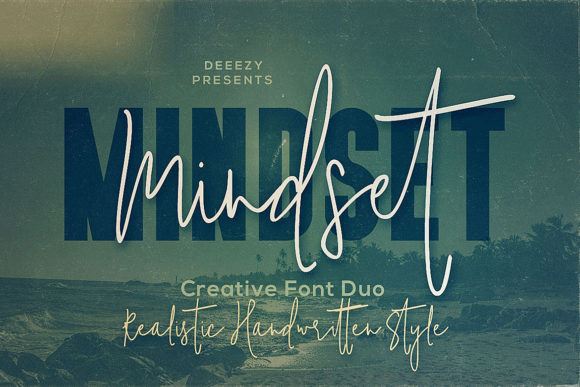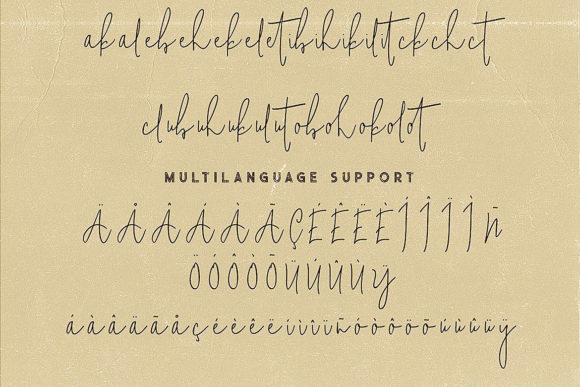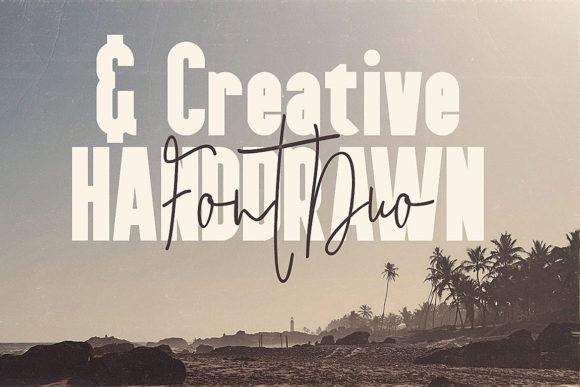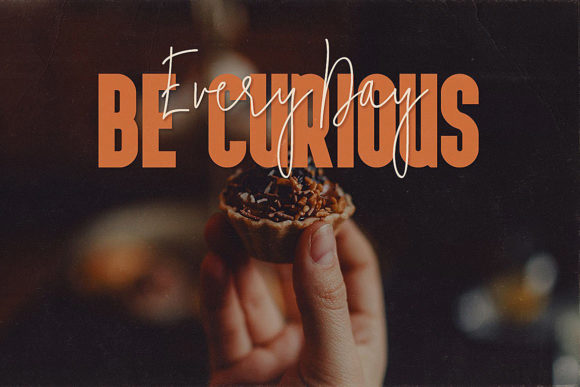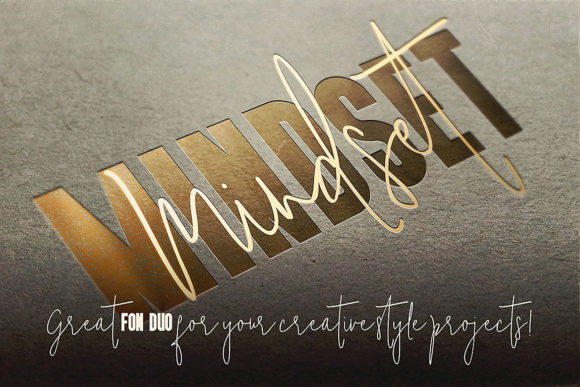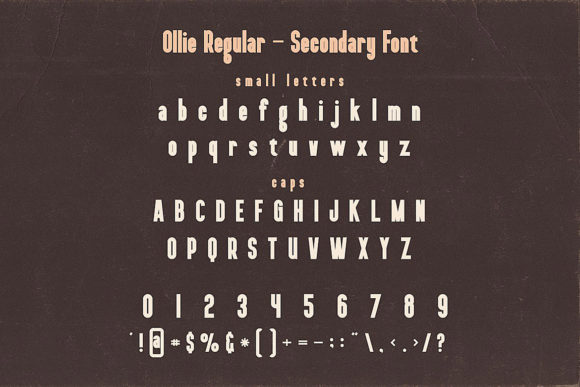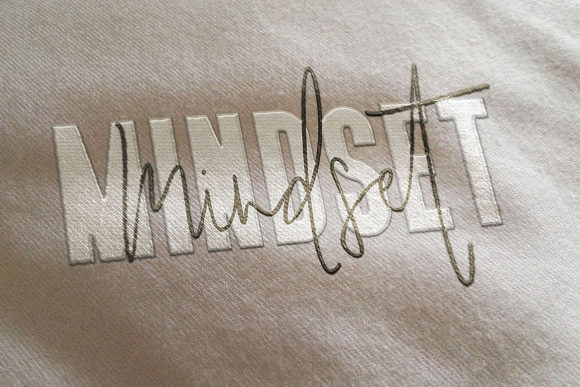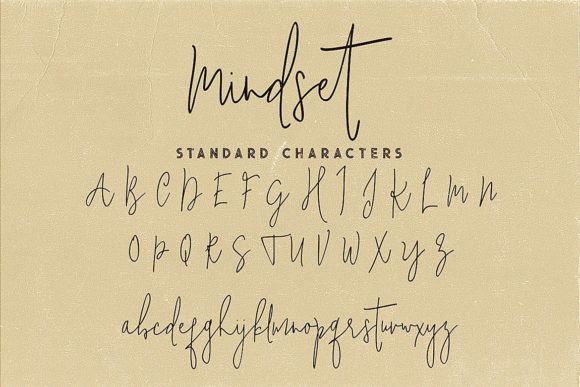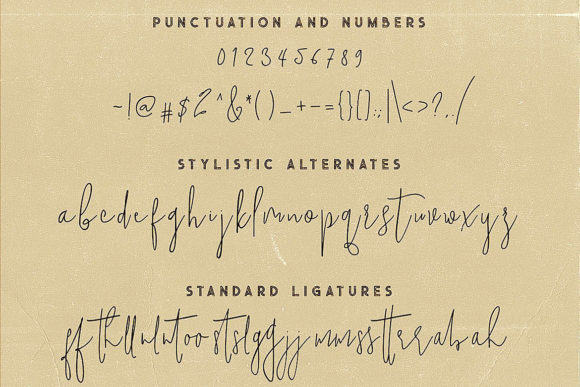
Mindset Duo Font
About Mindset Duo Font
The Mindset is a creative font duo. It includes a handwritten script style, and a bold sans serif font. Both styles can be combined perfectly, allowing you to create multiple unique designs with just this one download.